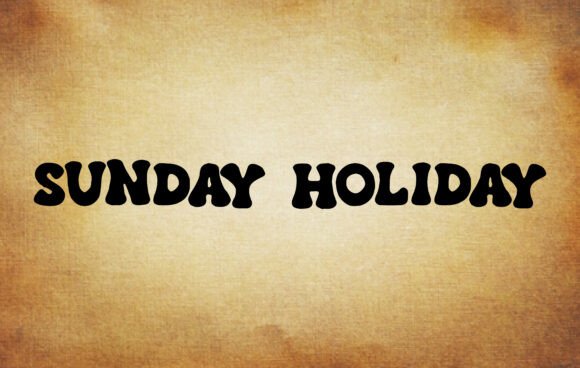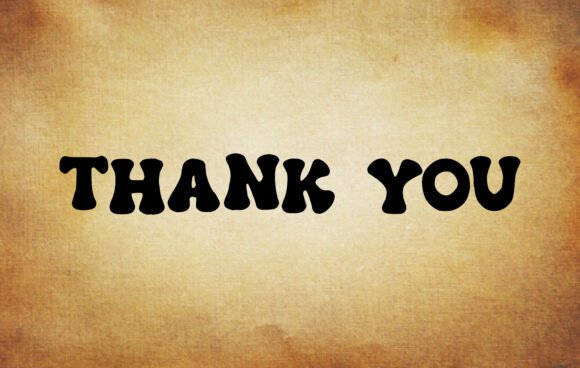
Introducing Butter Cake Font: The Ultimate Design Companion
Are you on the hunt for a font that can elevate your creative projects to new heights? Look no further than the Butter Cake Font! This stunning font is designed to be a true favorite among designers and crafters, and for good reason. With its exceptional legibility and versatility, it’s perfect for a wide range of applications, from magazine headlines to wedding invitations, and everything in between.
A Font that’s Both Legible and Lovely
One of the standout features of the Butter Cake Font is its exceptional legibility. Whether you’re using it as a title or body text, this font is easy on the eyes and looks great in just about any context. The clean lines, subtle curves, and carefully crafted letterforms all come together to create a font that’s both beautiful and functional.
The Butter Cake Font is incredibly versatile, making it perfect for a wide range of design projects. Here are just a few ideas to get you started:
- Magazine Headlines: Use the Butter Cake Font to create eye-catching headlines that grab readers’ attention and draw them in.
- T-Shirts and Apparel: Add a touch of style and sophistication to your t-shirt designs with this beautiful font.
- Social Media Graphics: Use the Butter Cake Font to create engaging social media graphics that stand out from the crowd.
- Branding and Packaging: Establish your brand’s identity with a custom font that’s both unique and memorable.
- Wedding Invitations and Cards: Add a touch of elegance and whimsy to your wedding invitations, cards, and other stationery with this lovely font.
Why Choose the Butter Cake Font?
So why choose the Butter Cake Font over other fonts on the market? Here are just a few reasons:
- Unique and Memorable: The Butter Cake Font is a one-of-a-kind design that’s sure to make your projects stand out.
- Highly Legible: This font is designed to be easy to read, even at small sizes.
- Versatile: Use the Butter Cake Font for a wide range of projects, from digital designs to print materials.
Tips for Using the Butter Cake Font
Here are a few tips for getting the most out of the Butter Cake Font:
- Experiment with Different Sizes: The Butter Cake Font looks great at a wide range of sizes, from large headlines to smaller body text.
- Play with Color: This font looks great in a variety of colors, from bold and bright to soft and pastel.
- Mix and Match: Combine the Butter Cake Font with other fonts and design elements to create a unique and eye-catching look.